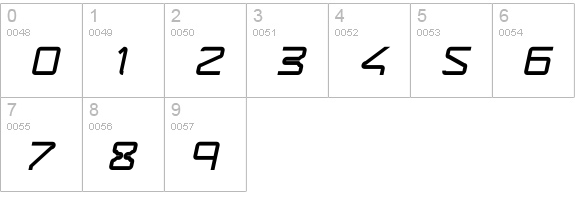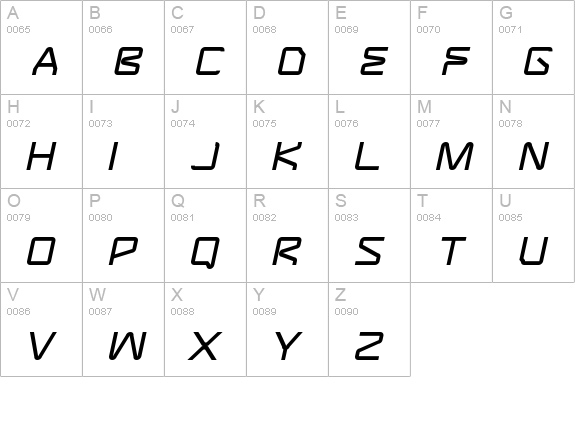
AssemblerBold Oblique Font Details
AssemblerBold Oblique is a distinctive, italic variant in the AssemblerBold typeface family \xE2\x80\x94 well suited to design and typography projects.
AssemblerBold Oblique is a striking and modern font that combines boldness with a touch of elegance in its oblique style. This versatile typeface is perfect for adding a strong visual impact to your designs, whether you're creating logos, posters, or any other creative project. The bold slanted letters exude a sense of power and dynamism, making your text stand out with confidence and style. And the best part? AssemblerBold Oblique is available for free download at FontsMarket.com, so you can easily access this high-quality font without breaking the bank. Don't miss out on the opportunity to enhance your designs with this eye-catching typeface that is both bold and sophisticated. Download AssemblerBold Oblique today and take your projects to the next level!